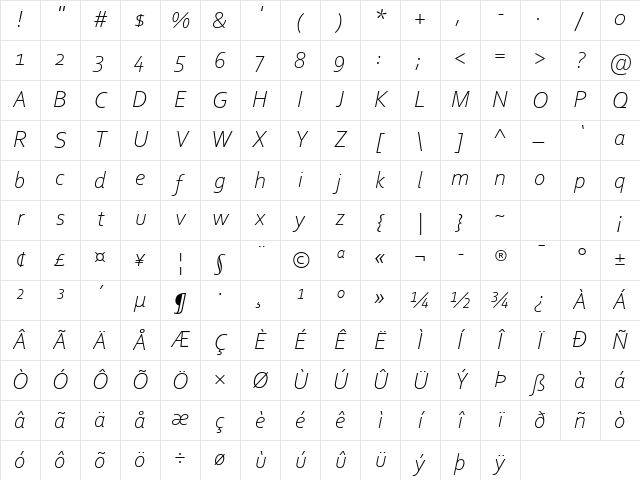
Corbel Light Italic
Foundry: Microsoft Corporation
Designer: Monotype Design Team
Design Context for Corbel Light
Corbel Light is a composed and adaptable typeface that performs quietly and consistently across a wide range of design contexts. The slanted form adds forward momentum and visual energy. Its slender proportions lend an understated elegance to any composition.
Pro Tip: Use Corbel Light for emphasis, pull quotes, and subheadings where its slanted energy can add rhythm to the layout.